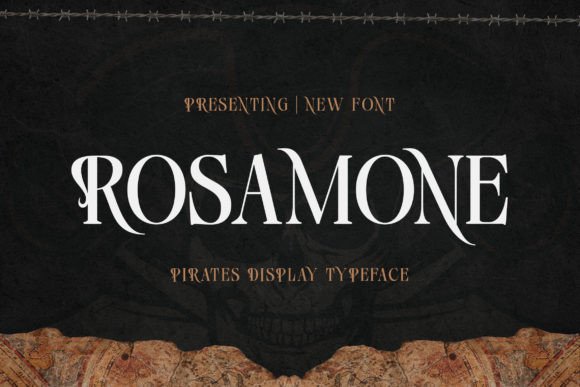
Are you looking for the perfect font for your next pirate-themed project? Look no further than Rosamone Font, created by TypeFactory. With its stunning serif style, this font is the best choice for anyone seeking to create an adventurous, pirate-inspired design.
Rosamone Font is the ultimate choice for anyone who wants to capture the spirit of the high seas. Its bold, powerful look immediately transports you into the world of pirates and adventure, making it the perfect choice for movie titles, game design, and any other pirate-themed project you have in mind.
When you use Rosamone Font, you'll instantly feel like you're a part of a swashbuckling adventure. Its unique, fantasy-inspired design will capture your imagination and take you on a journey you'll never forget. Plus, its versatility means you can use it for a wide range of projects, from movie titles to branding, and beyond.
But what really sets Rosamone Font apart is its emotional impact. This font evokes a sense of excitement, danger, and adventure that simply can't be matched by any other font. Whether you're creating a poster, a website, or anything in between, Rosamone Font will grab your audience's attention and keep them engaged.